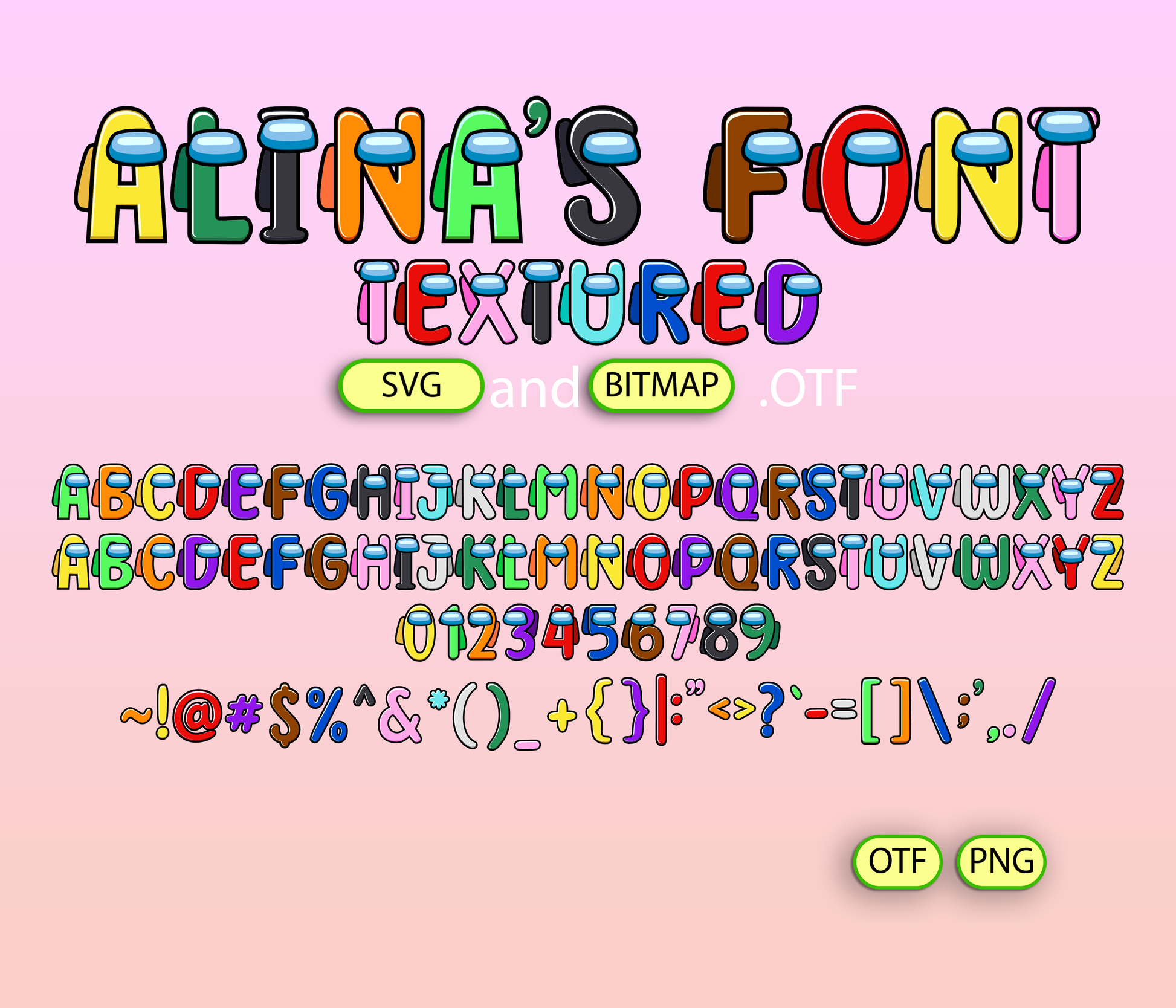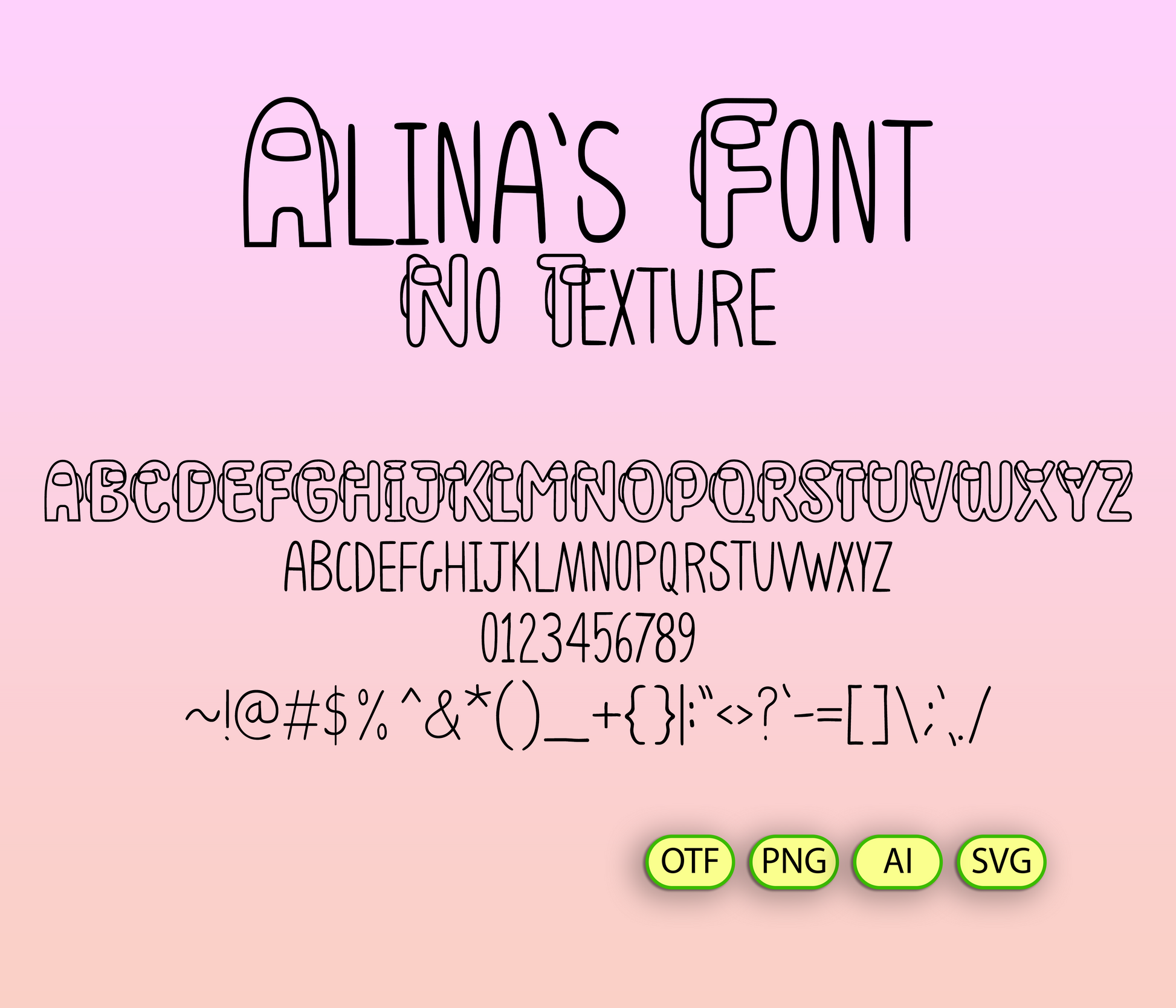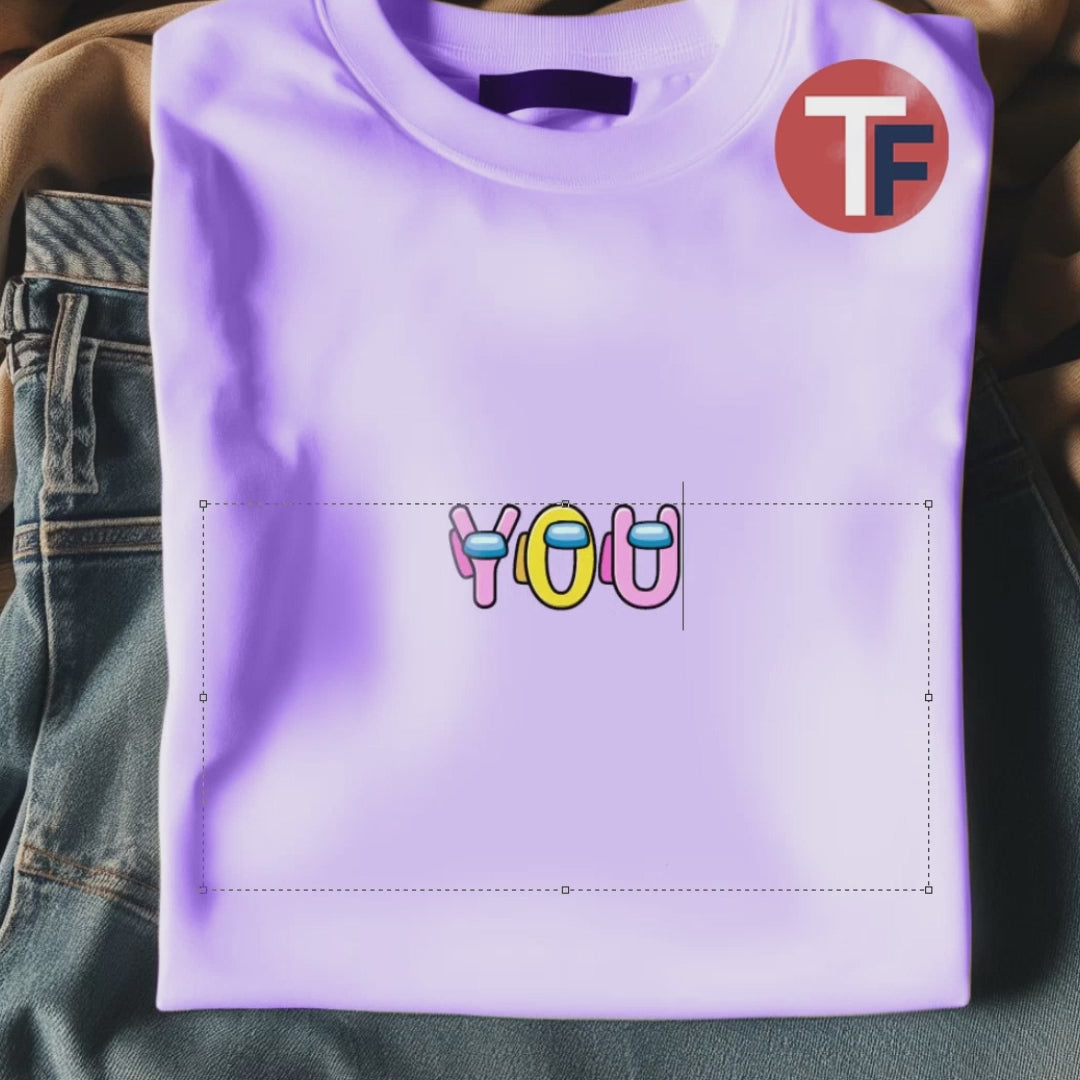
Space Mystery Font Textured
Space Mystery Font: Inspired by Deception and Intrigue
Dive into the intriguing and suspenseful universe with our Space Mystery font, capturing the thrilling and playful spirit of a popular game. Perfect for fans, event planners, and designers, this font brings the dynamic and mysterious essence to your projects. Whether creating event invitations, themed merchandise, or digital content, our Space Mystery font ensures your projects resonate with fun and excitement.
Our Space Mystery-inspired font features bold, rounded lines and playful characters reflecting the game's vibrant and approachable aesthetic. This versatile font is ideal for:
- Event Invitations: Engaging invites for gaming nights, themed parties, or virtual meet-ups.
- Merchandise Design: T-shirts, posters, and accessories capturing the game's essence.
- Digital Media: Fun and eye-catching headers and graphics for websites, blogs, and social media.
- Educational Materials: Presentations, worksheets, and content focused on teamwork, problem-solving, or storytelling.
- Personal Projects: Add playful mystery to scrapbooking, DIY crafts, or home decor.
To ensure maximum usability and flexibility, our Space Mystery font includes both textured and non-textured variants. The non-textured version ensures compatibility with all software, including Canva, enhancing accessibility and ease of use across various digital and print platforms.
Our Space Mystery font pays tribute to an engaging game, empowering you to infuse your designs with playful and mysterious spirit. Whether crafting promotional materials, unique merchandise, or adding fun to personal projects, this font allows you to communicate with the energy and excitement of the game. Ready to add intrigue to your creative projects? This font is your key.